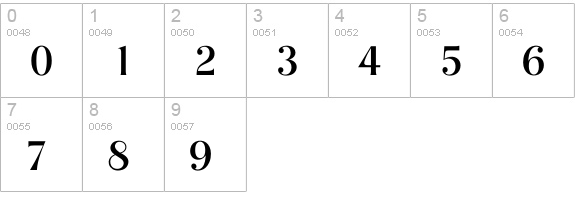
Nashvi Regular is the standard, neutral variant in the Nashvi typeface family \xE2\x80\x94 well suited to general body text, paragraphs, and standard typographic work.
Nashvi Regular is a sleek and modern typeface that strikes the perfect balance between elegance and readability. With its clean lines and timeless appeal, this font is versatile and suitable for a wide range of design projects. Whether you're creating branding materials, websites, or printed materials, Nashvi Regular is sure to make a lasting impression. The best part? Nashvi Regular is completely free to download at FontsMarket.com, making it accessible to designers and creatives of all levels. Don't miss out on the opportunity to add this beautiful font to your collection and elevate your designs with its sophisticated charm. Download Nashvi Regular today and let your creativity flow!